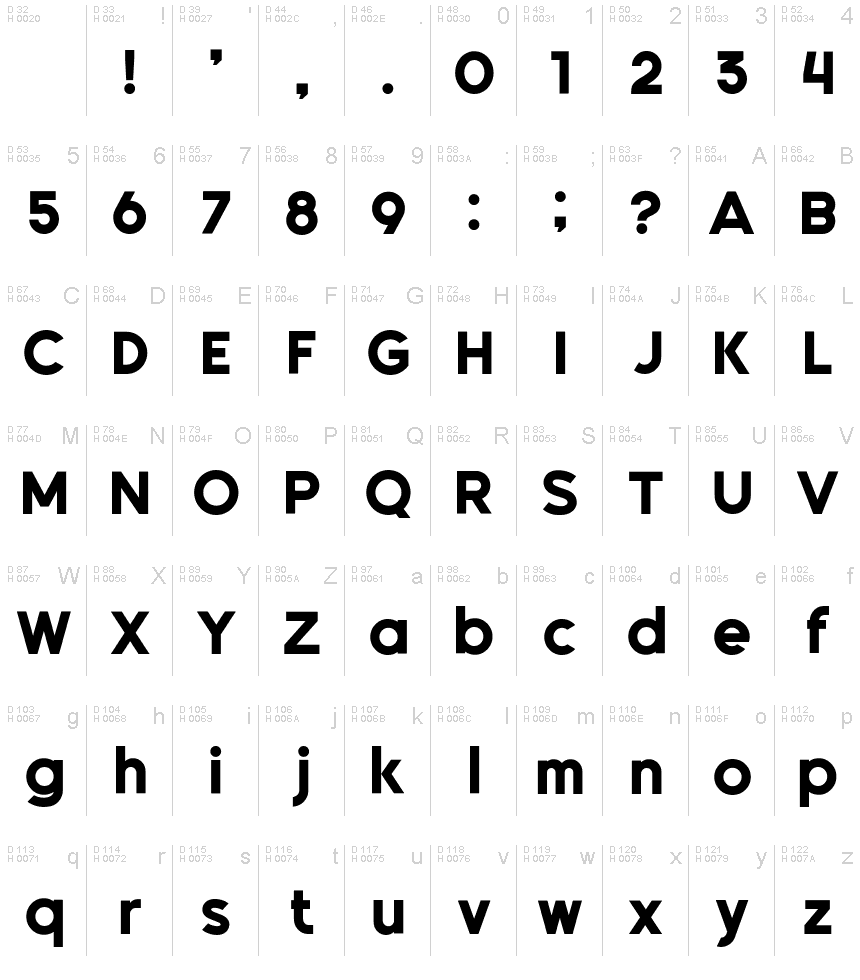
Kondusif
Kondusif, the bold sans serif font by Jeje Abidin is a perfect choice for projects that require a strong and impactful visual statement. Its clean lines and sharp angles make it ideal for bold headlines, powerful logos, and striking graphic designs. The bold weight of this typeface commands attention and adds weight to any message it carries, making it suitable for advertising campaigns, packaging design, or editorial layouts. Whether you're creating a website header or designing a poster, Kondusif's boldness will make your message stand out from the crowd. Choose Kondusif for your next project and make an impact that won't be ignored.